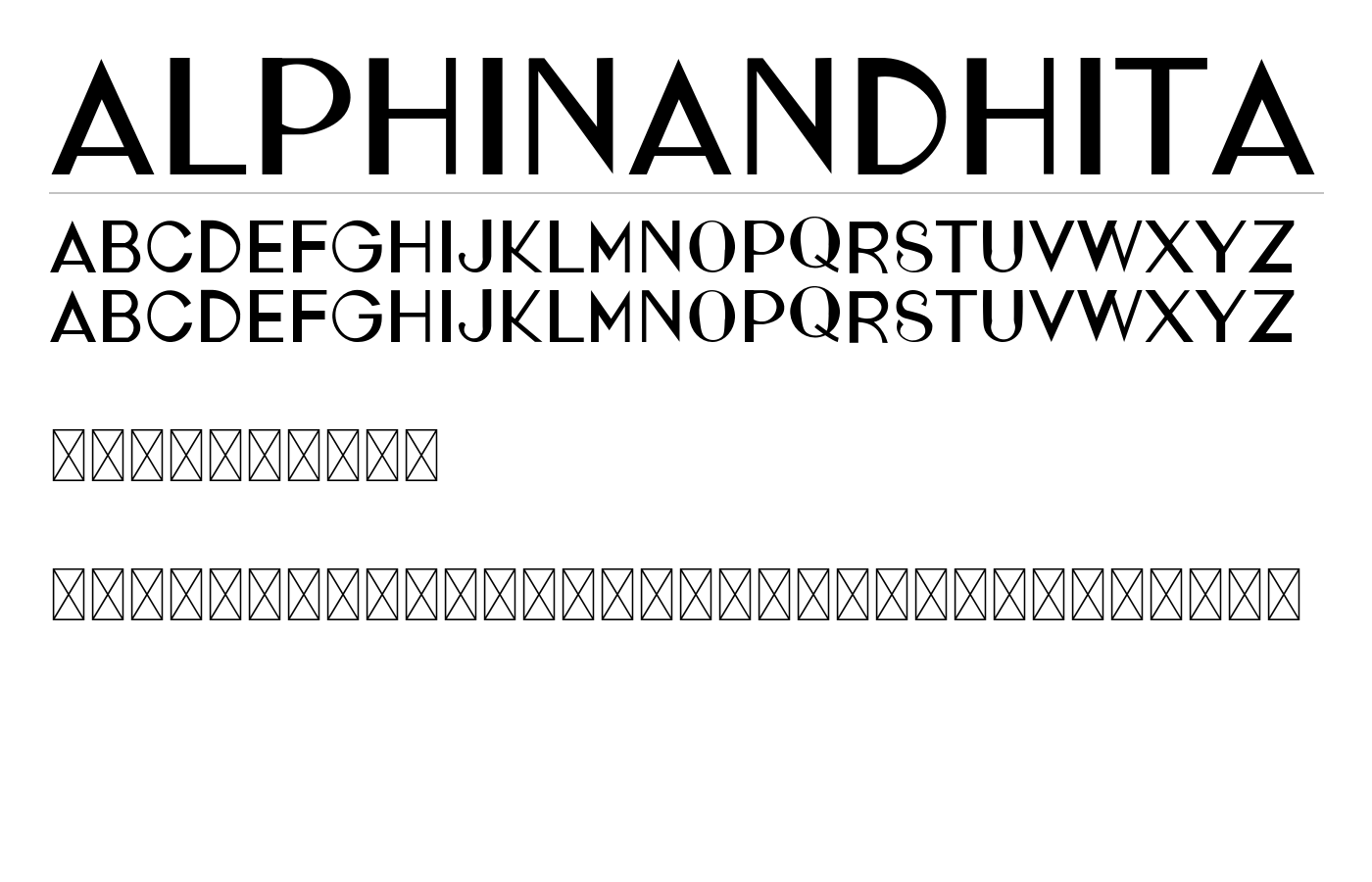
ALPHINANDHITA is a sleek and modern sans serif font characterized by its clean, geometric lines and subtle, elegant curves. Its medium weight and balanced letterforms give it a refined yet approachable feel, making it ideal for sophisticated branding, editorial design, and contemporary headlines that require clarity with a touch of personality. This font works wonderfully in projects that aim to communicate professionalism with a modern edge.
ALPHINANDHITA Font
About ALPHINANDHITA Font